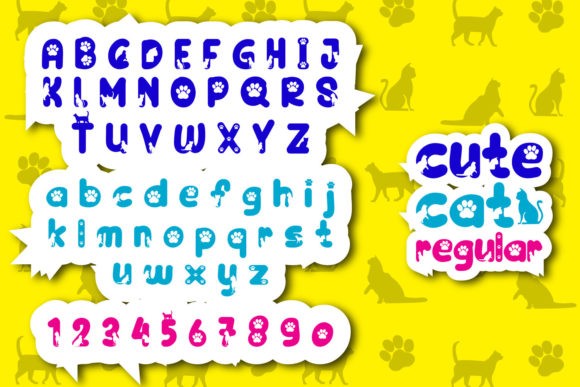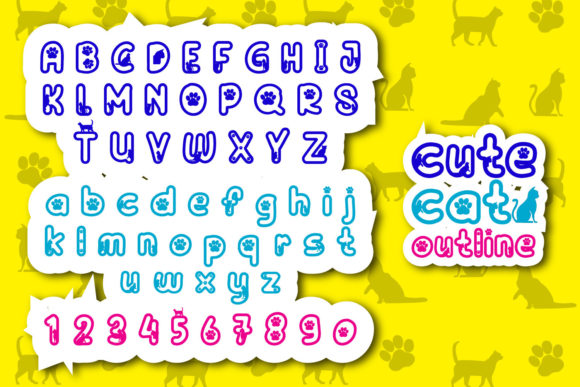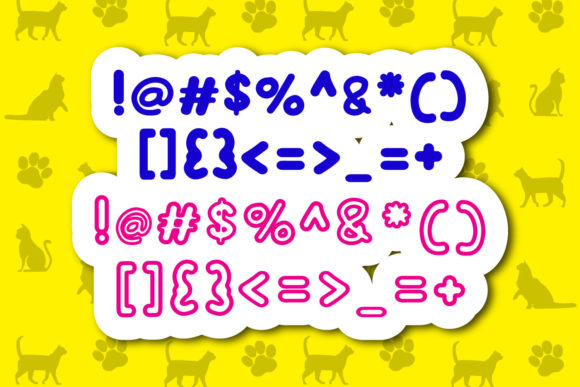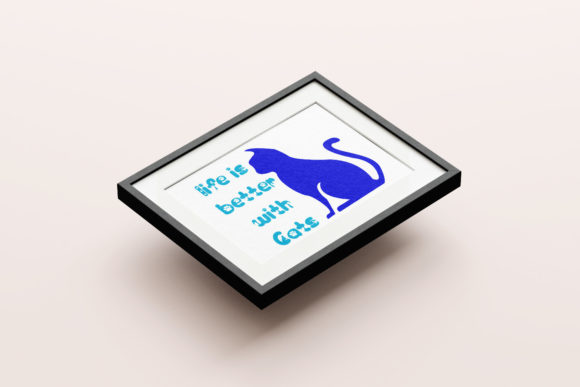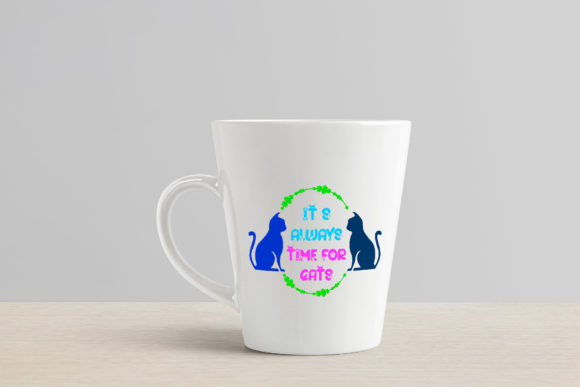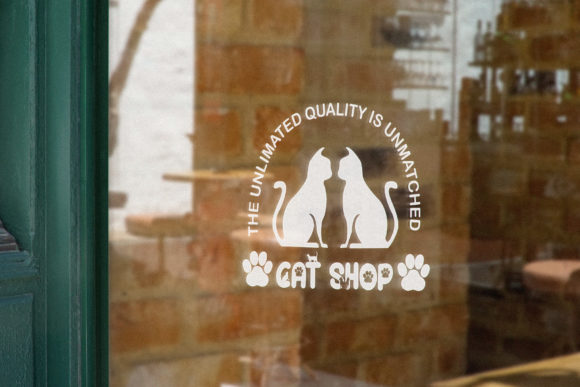
Cute Cat Font: The Purrfect Addition to Your Design Projects
Are you looking for a font that embodies fun, playfulness, and authenticity? Look no further than the Cute Cat Font! This adorable decorative font is perfect for a variety of design projects, from children’s activities and crafts to t-shirt designs and more.
What Makes Cute Cat Font So Special?
The Cute Cat Font is a unique and charming font that is sure to capture the hearts of designers and crafters alike. Its cute and lovable design makes it an ideal choice for projects that require a playful and whimsical touch. Whether you’re creating a fun and colorful children’s activity sheet, a craft project, or a t-shirt design, this font is sure to add a touch of personality and charm.
Characteristics of Cute Cat Font
The Cute Cat Font has several characteristics that make it stand out from other fonts. Some of its key features include:
- Playful Design: The Cute Cat Font has a playful and whimsical design that is sure to add a touch of fun to any project.
- Cute and Lovable: The font’s cute and lovable design makes it perfect for projects that require a touch of personality and charm.
- Decorative: The Cute Cat Font is a decorative font that is perfect for adding a touch of elegance and sophistication to any project.
- Authentic: The font’s authentic design makes it perfect for projects that require a genuine and original touch.
Uses for Cute Cat Font
The Cute Cat Font is a versatile font that can be used for a variety of design projects. Some of the most popular uses for this font include:
- Children’s Activities: The Cute Cat Font is perfect for creating fun and colorful children’s activity sheets, such as coloring pages, word searches, and more.
- Crafts: The font is also great for craft projects, such as making cards, gift tags, and other DIY projects.
- T-Shirt Designs: The Cute Cat Font is a great choice for t-shirt designs, especially for kids’ clothing and accessories.
- Stationery: The font can also be used to create fun and colorful stationery, such as notebooks, journals, and more.
Tips for Using Cute Cat Font
Here are a few tips for using the Cute Cat Font in your design projects:
- Use it for Headings: The Cute Cat Font is perfect for headings and titles, as it adds a touch of personality and charm to any project.
- Pair it with Other Fonts: The font can be paired with other fonts to create a unique and interesting design.
- Experiment with Colors: The Cute Cat Font looks great in a variety of colors, so don’t be afraid to experiment and find the perfect color for your project.
The Cute Cat Font is a fun and playful decorative font that is perfect for a variety of design projects. Its cute and lovable design makes it an ideal choice for projects that require a touch of personality and charm. Whether you’re a designer or crafter, this font is sure to add a touch of whimsy and fun to any project. So why not give it a try and see how it can add a purrfect touch to your designs?